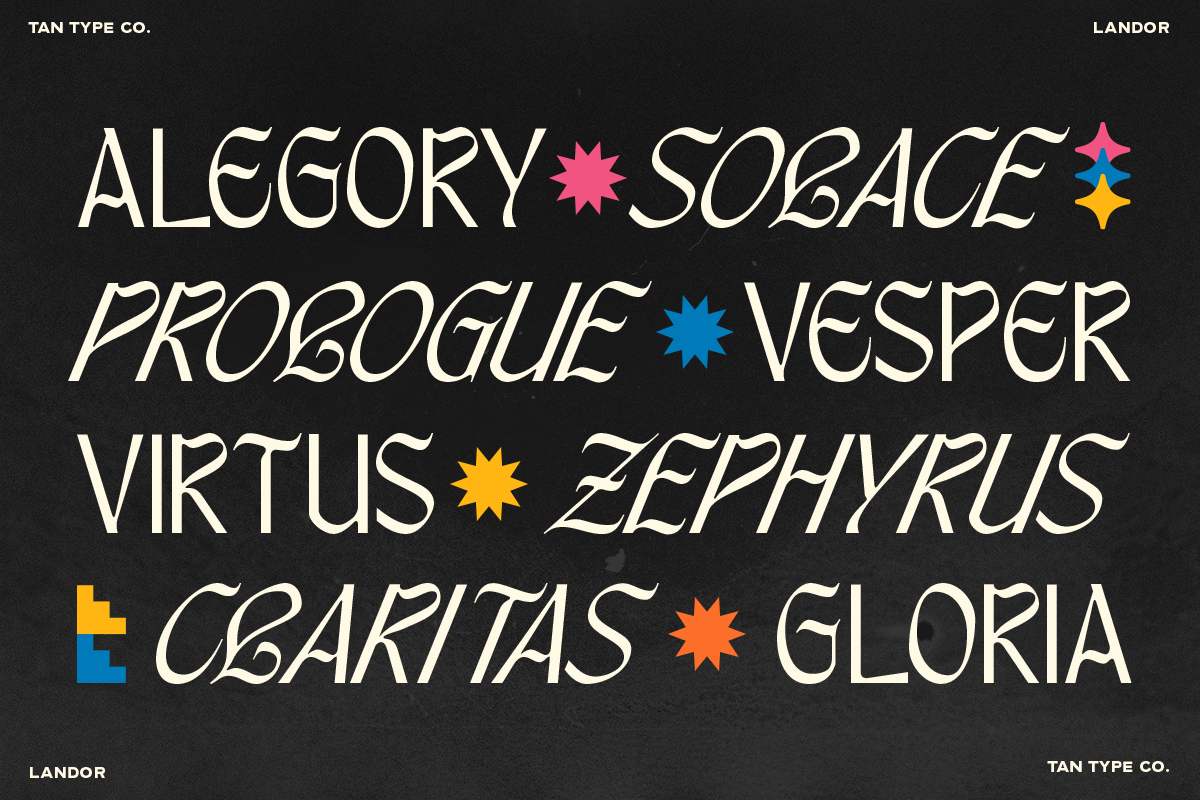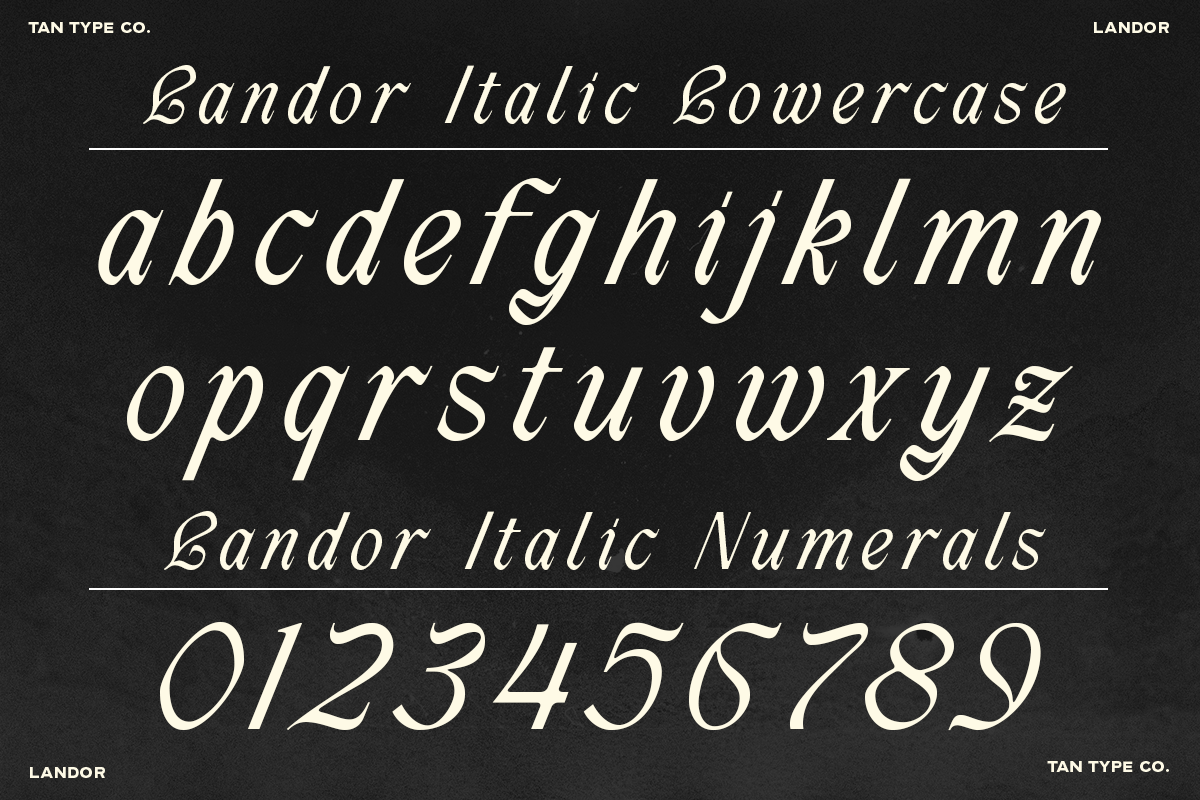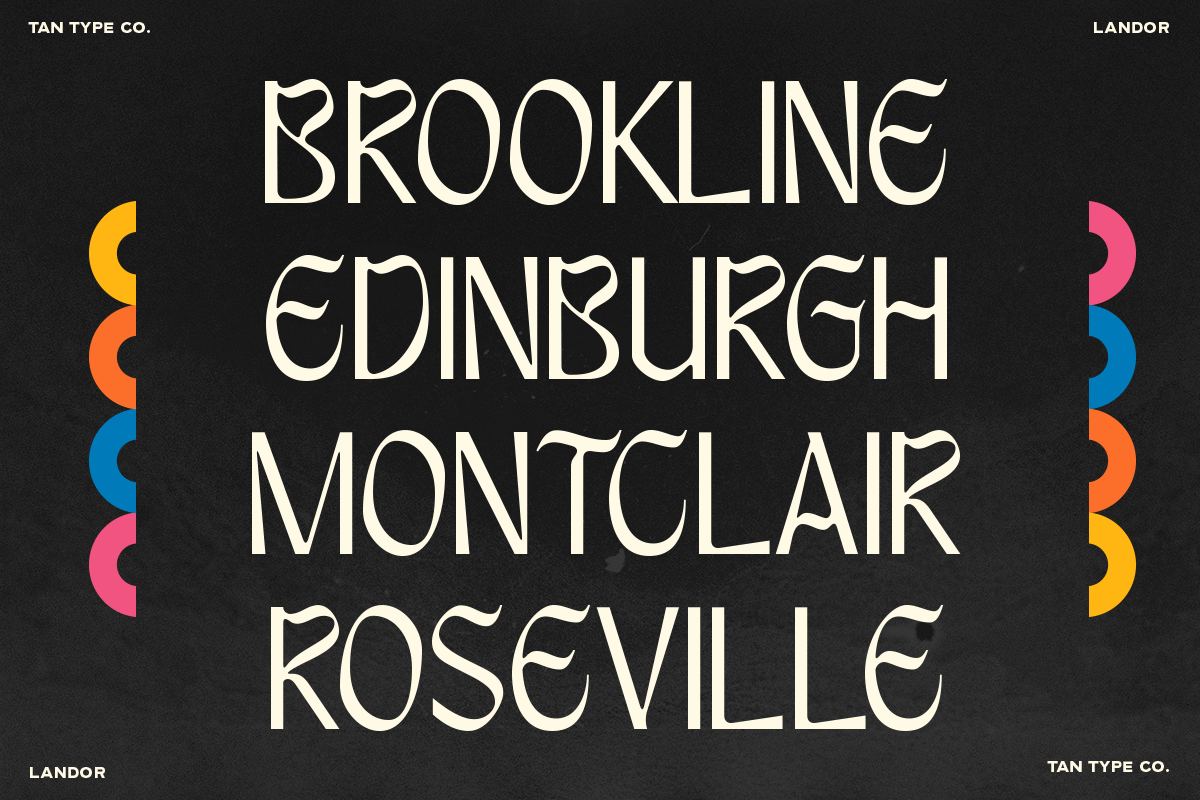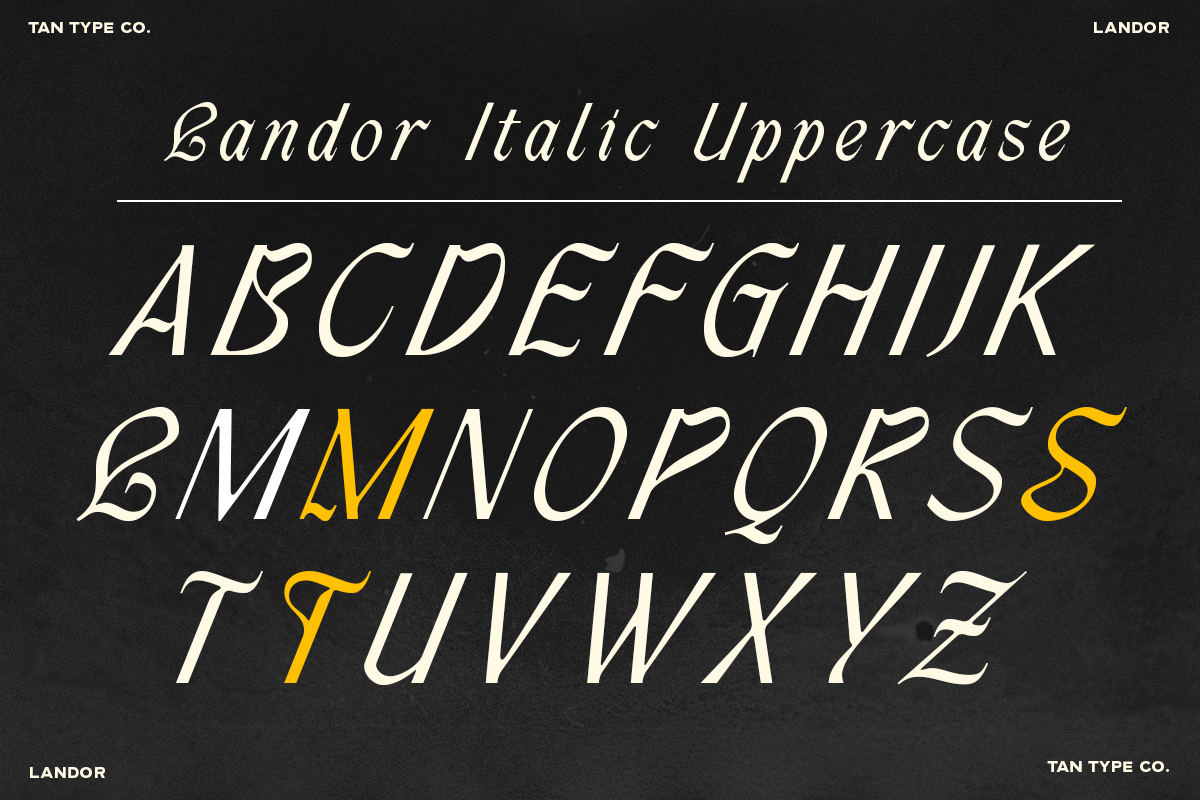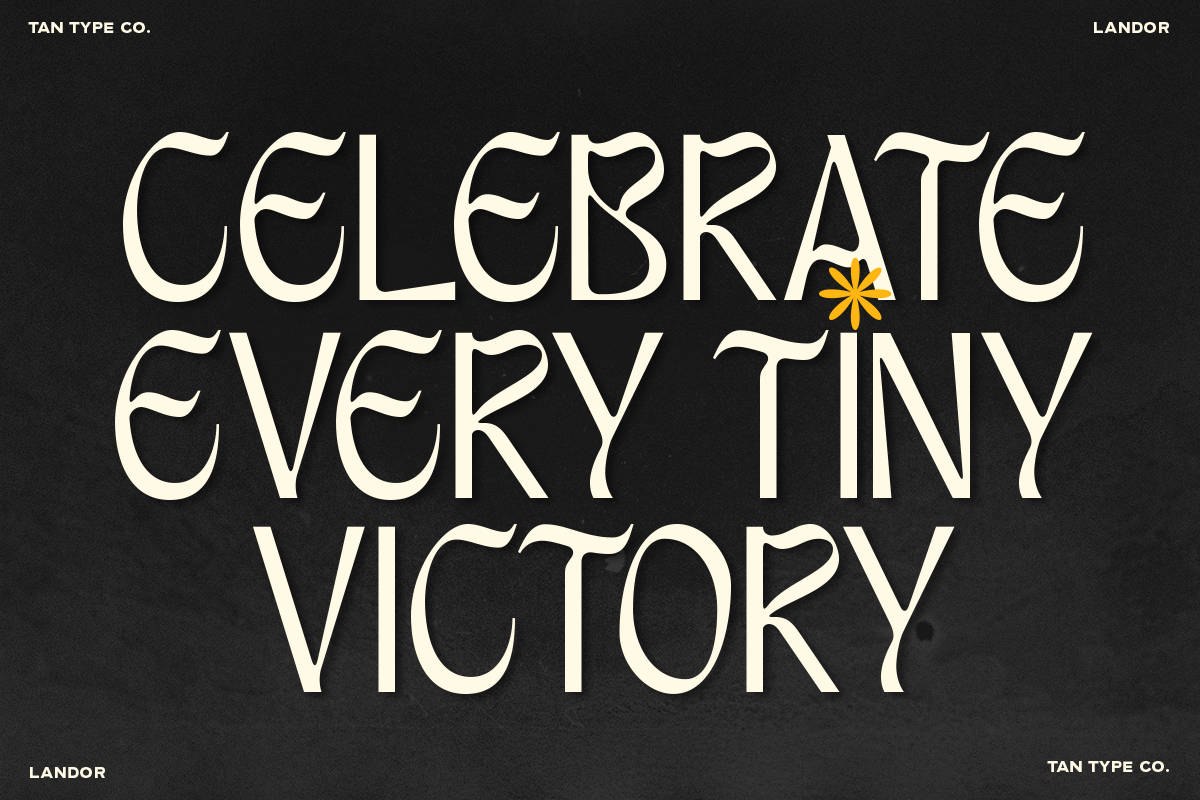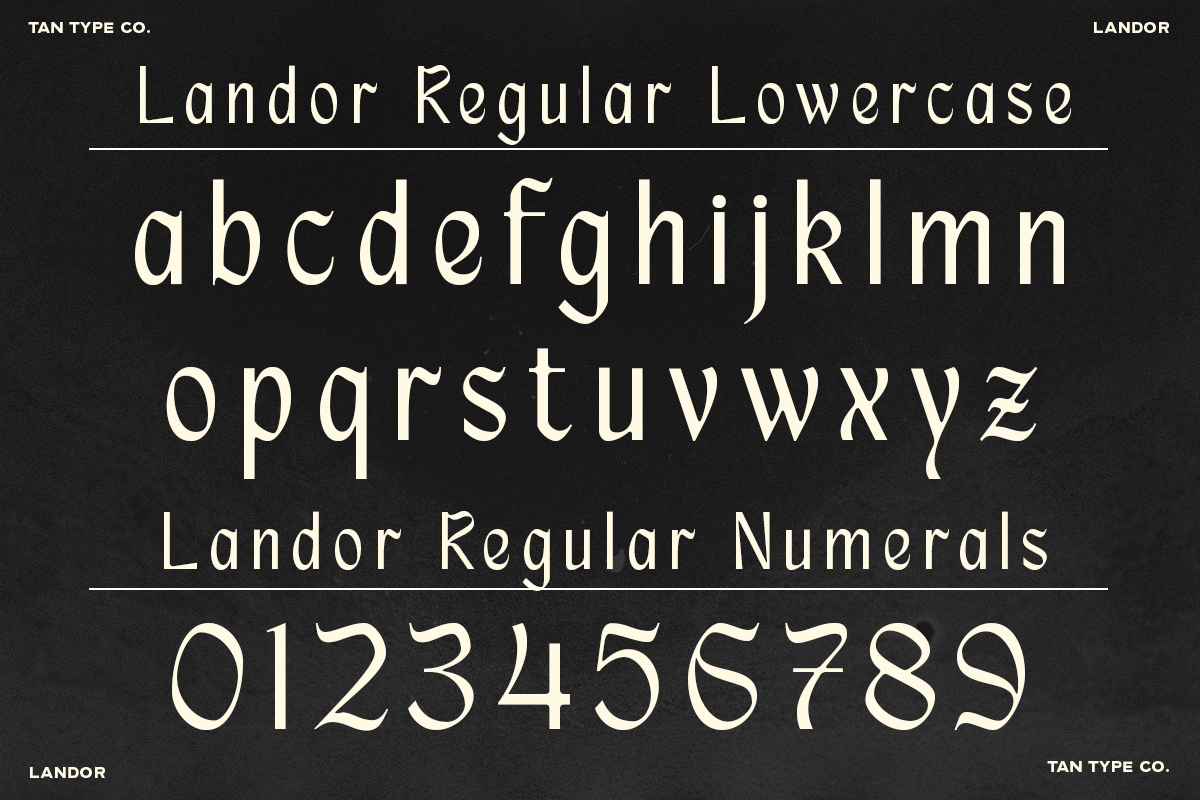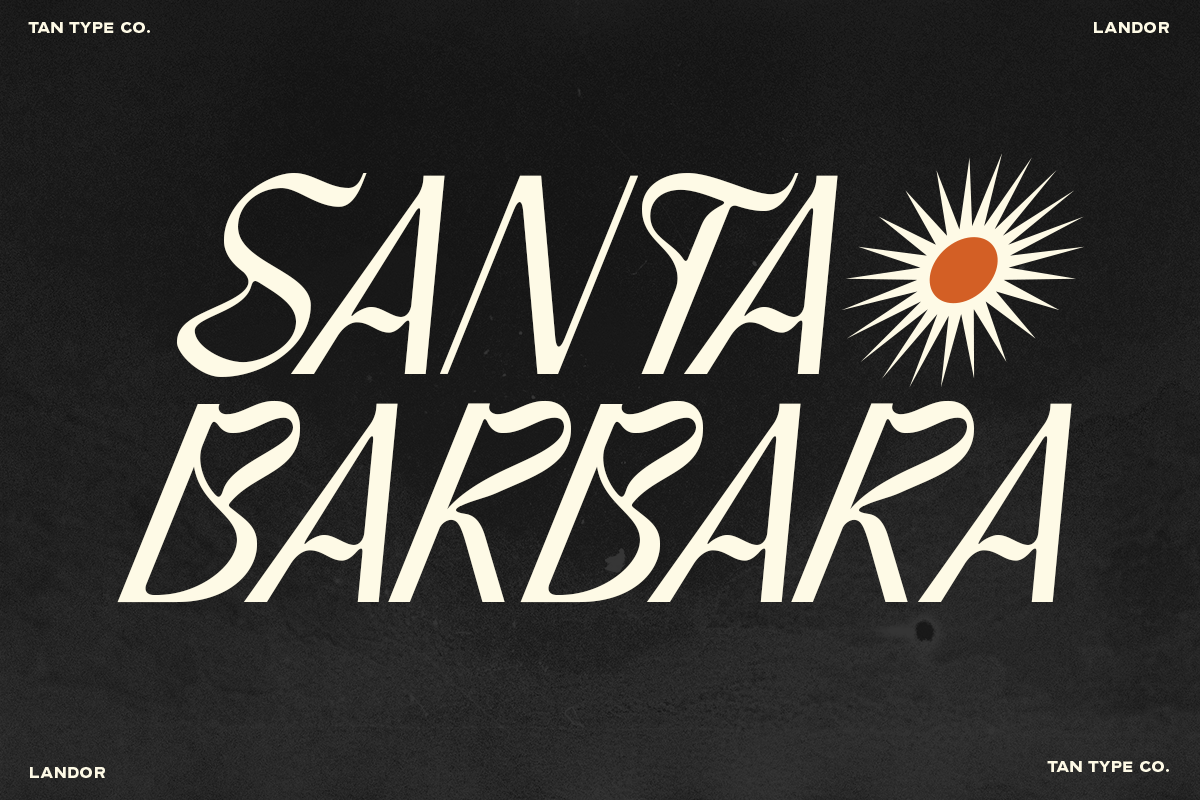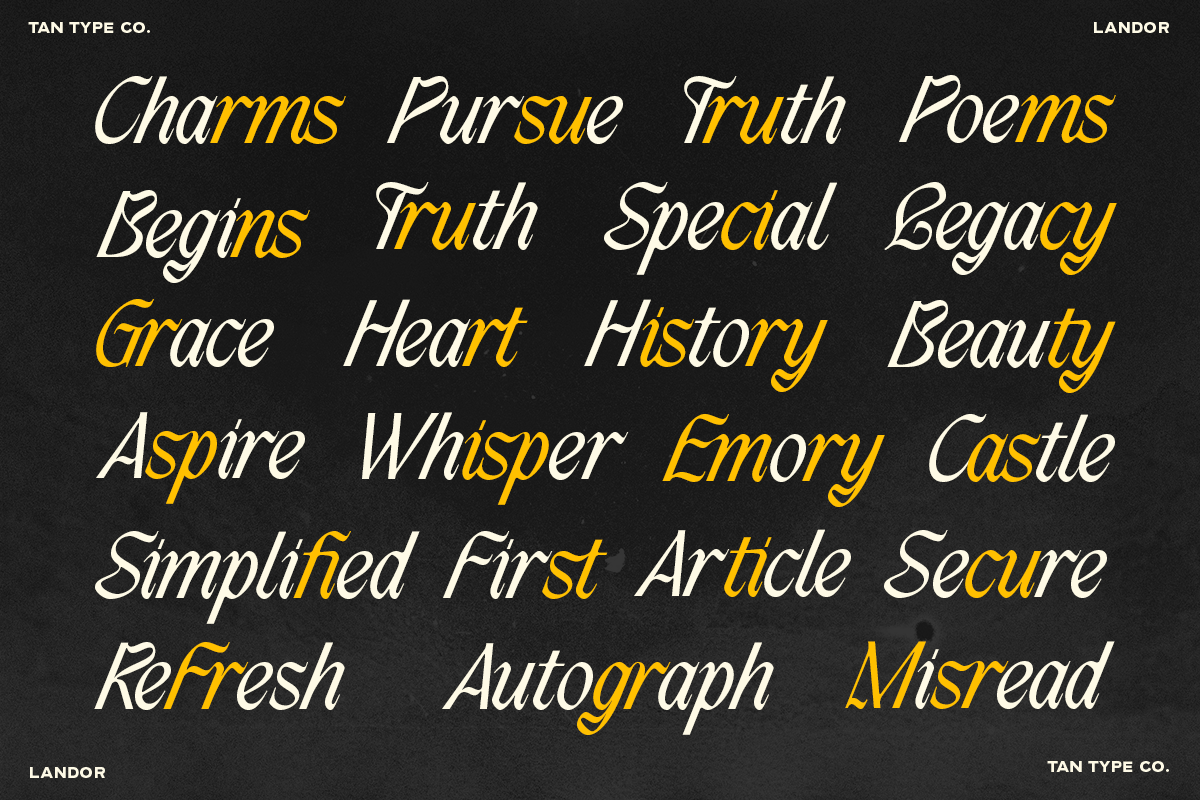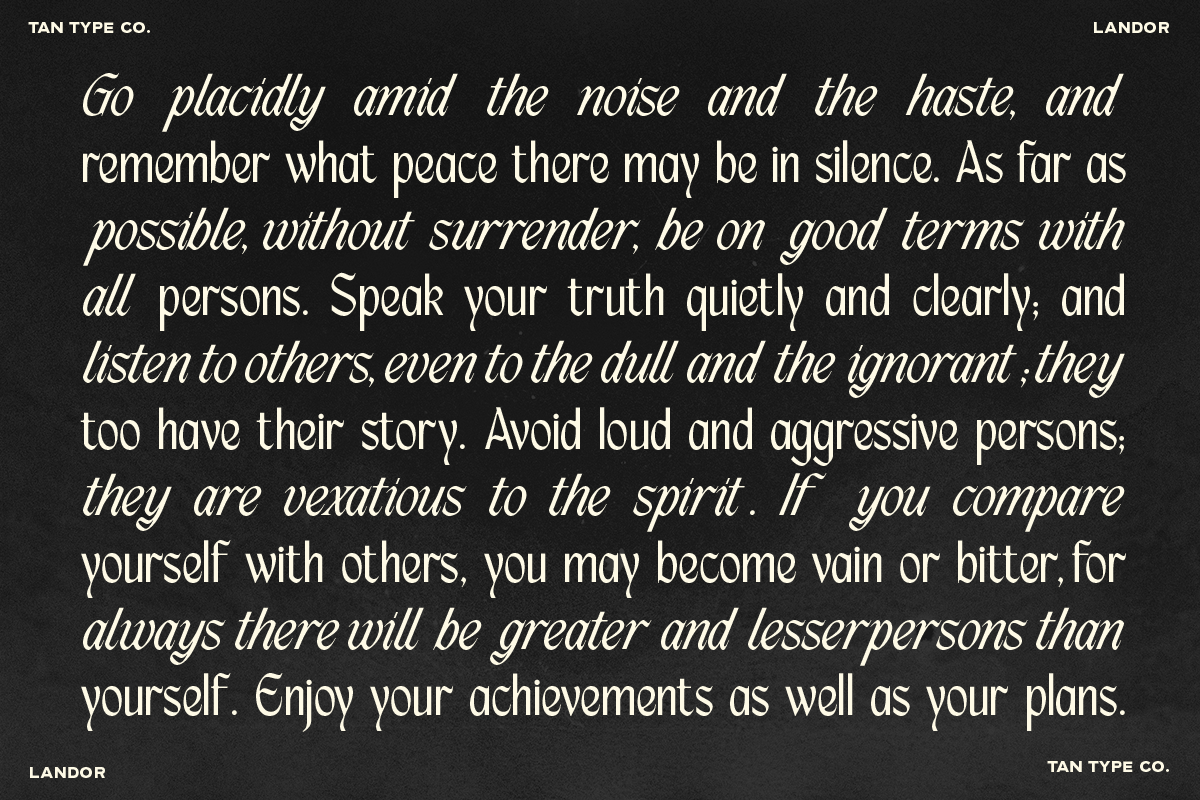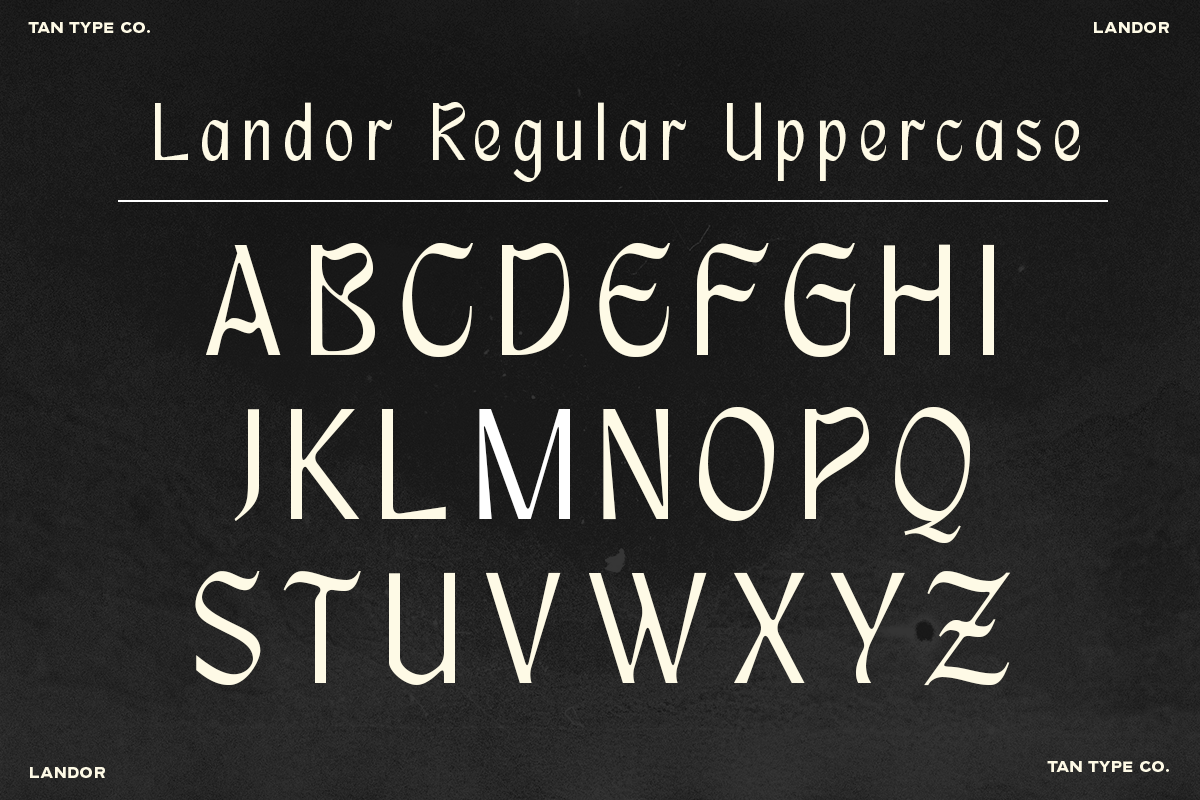
TAN - LANDOR
TAN - LANDOR is a fresh interpretation of blackletter—bold, straightforward, and full of personality. It blends classic gothic roots with a modern, simplified edge that’s both fun and elegant. With playful curves and clean structure, this typeface adds instant attitude to your designs without losing clarity or charm. Perfect for branding, posters, packaging, and editorial work that needs a little funk and a lot of style.